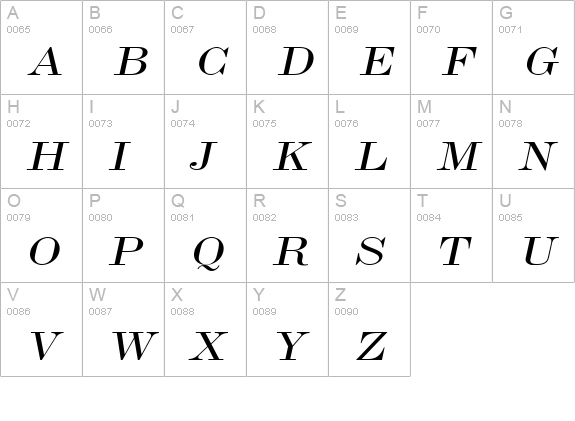
Indy 17 Extended Italic Font Details
Indy 17 Extended Italic is a distinctive, extended-width, italic variant in the Indy typeface family \xE2\x80\x94 well suited to design and typography projects.
Indy 17 Extended Italic font is a sleek and stylish typeface that exudes a sense of modernity and sophistication. Its elongated and italicized letterforms add a touch of elegance to any design project, making it perfect for creating eye-catching headlines, logos, and branding materials. This font offers a unique balance between legibility and creativity, making it suitable for a wide range of applications. Whether you're designing a website, crafting a poster, or creating a magazine layout, Indy 17 Extended Italic font will effortlessly elevate your designs to a whole new level. One of the best things about Indy 17 Extended Italic font is that it is freely available to download at FontsMarket.com. This means that you can easily access and use this stunning typeface without any restrictions. Whether you're a professional graphic designer or a hobbyist, this font allows you to unleash your creativity without worrying about licensing fees or restrictions. With its sleek and modern aesthetic, Indy 17 Extended Italic font is the perfect choice for those looking to add a touch of sophistication to their designs. Its extended letterforms and elegant italics make it stand out from the crowd, ensuring that your projects will be visually captivating and memorable. Don't miss out on the opportunity to enhance your designs with Indy 17 Extended Italic font. Download it for free at FontsMarket.com and start adding a touch of elegance to your creations today.